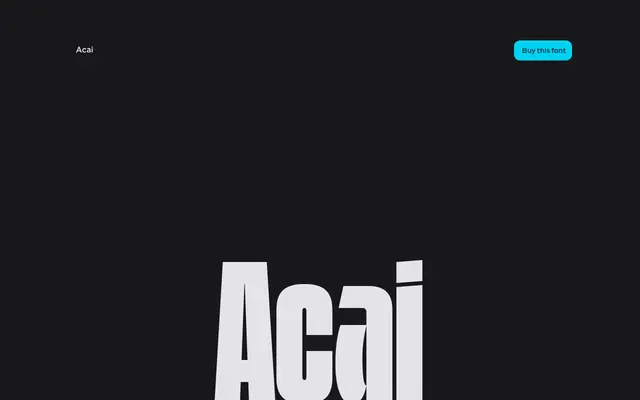
Acai
A width-variable sans-serif from Capitalics spanning six widths from ultra condensed to ultra expanded, with a variable font included in the family purchase.
Designed by Mateusz Machalski of Capitalics, Acai covers an unusually broad horizontal range across six discrete styles and a continuous variable axis. The family appears tailored to branding contexts where a single typeface must adapt across very different spatial constraints. No italic or weight variation is offered, keeping the focus squarely on width flexibility.
Acai is a width-variable sans-serif spanning ultra condensed to ultra expanded, with no italic or weight axis evident, suggesting a grotesque or neutral sans built around horizontal variation rather than optical size or stroke modulation.